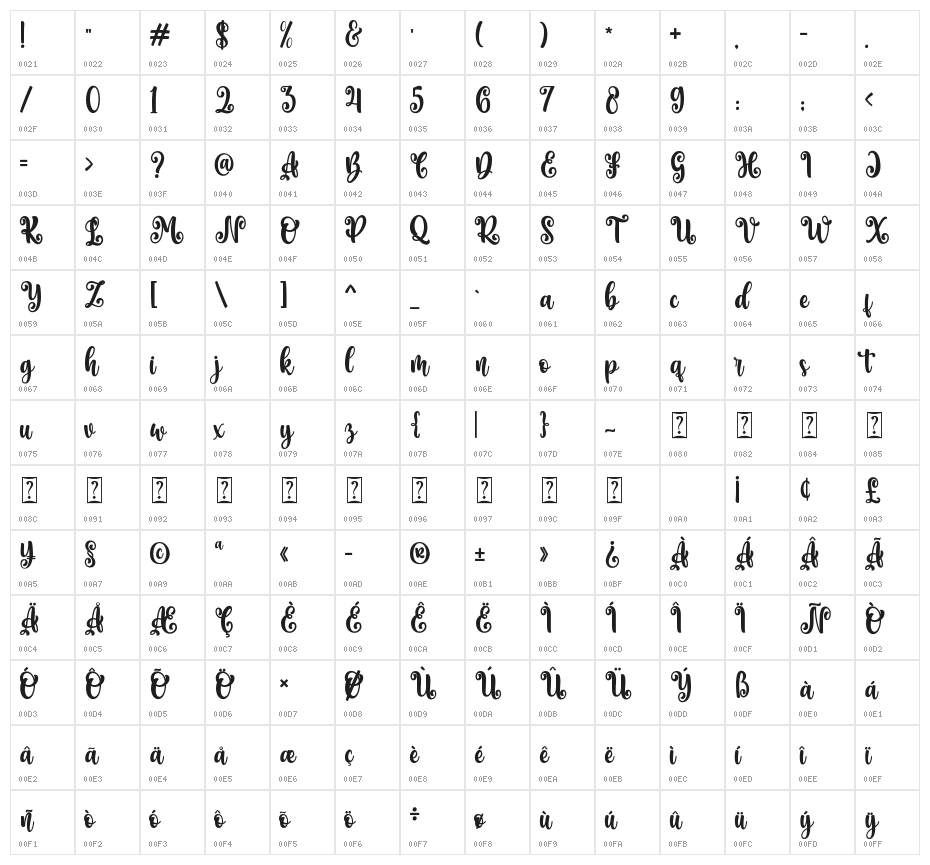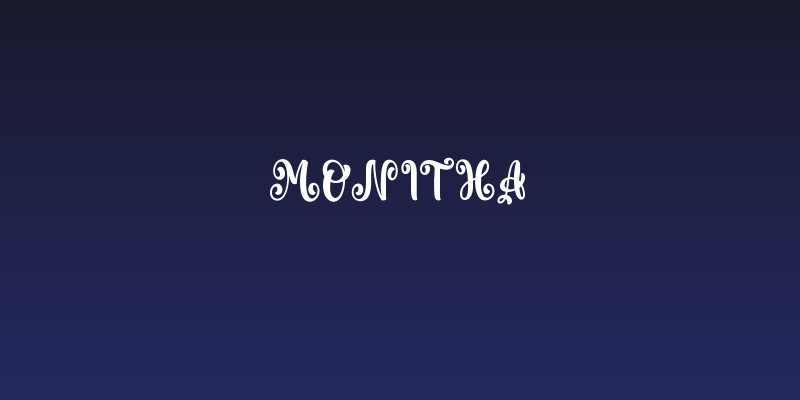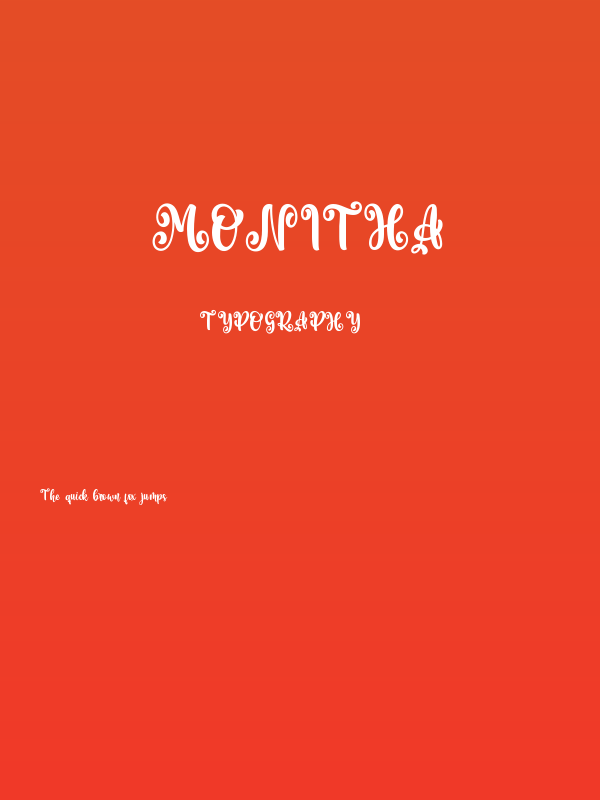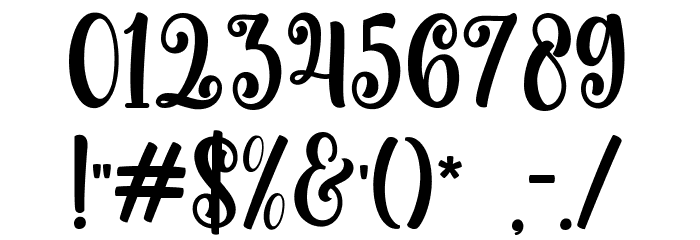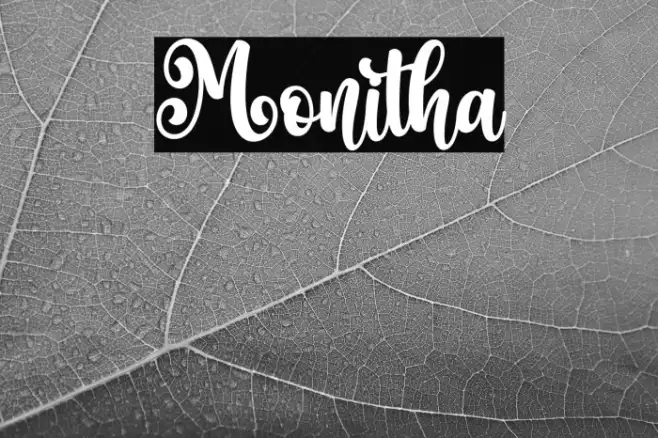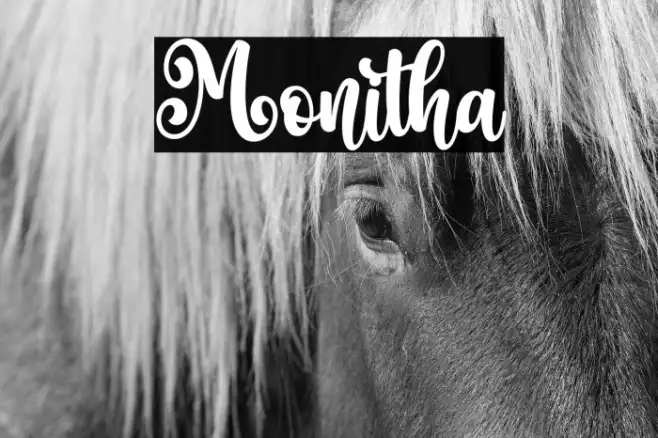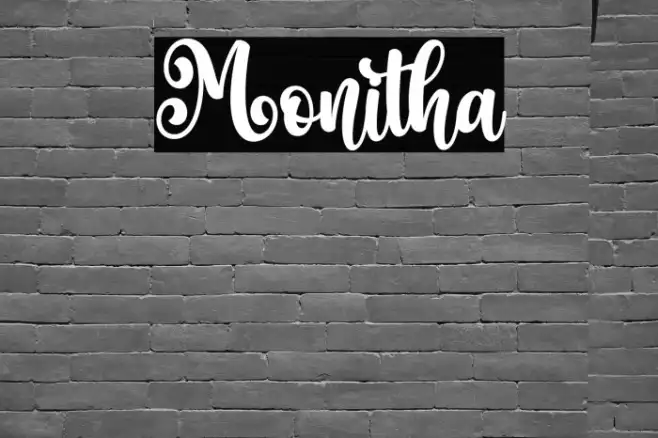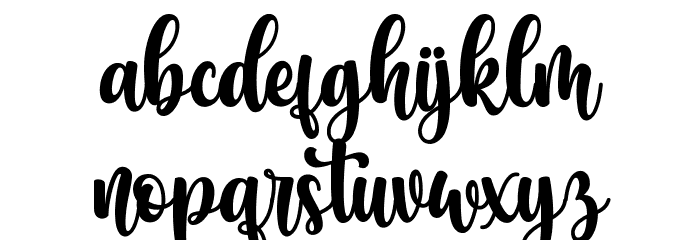
Monitha Font
Monitha Description
This font features a playful and whimsical style with a decorative flair. The characters are bold and rounded, with a consistent stroke width that gives it a cohesive look. The uppercase letters are adorned with elegant swirls and curls, adding a touch of sophistication. The lowercase letters maintain a similar playful style, with some characters featuring unique loops and flourishes. The numerals are equally decorative, maintaining the font's overall theme. This font is ideal for projects that require a fun and engaging aesthetic, such as invitations, greeting cards, or playful branding.
| Proposed Projects | Ideal for invitations, greeting cards, playful branding, and decorative projects. |